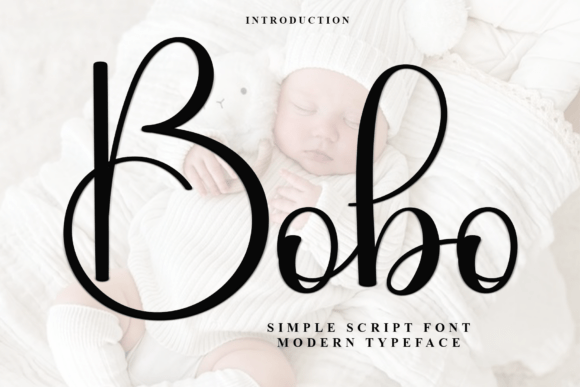
Introduction to Bobo Boy Font
Elegant and flowing, this script font captures the beauty of hand-lettered calligraphy with a modern twist.
πŸ‘€ Author Inermedia STUDIO
Its smooth curves and graceful strokes make it perfect for wedding invitations, logos, branding, social media, and anything that needs a touch of sophistication Whether you’re going for romantic, classy, or chic, this font delivers charm and personality in every letter.
Key Features of Bobo Boy Font